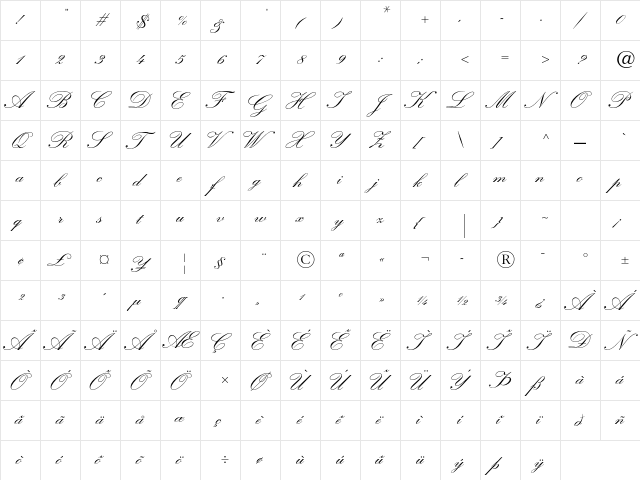
K߮stler Script LT Std Two Bold Regular Font Preview
| Designer | Hans Bohn |
Design Context for K߮stler Script LT Std Two Bold Typeface
K߮stler Script LT Std Two Bold flows with the natural rhythm of handwritten lettering, making it ideal for designs that call for warmth and personal expression. The heavy weight commands attention and anchors typographic hierarchies.
Font Pairing: Combine K߮stler Script LT Std Two Bold with a simple geometric sans for maximum contrast — the tension between flowing curves and clean structure is a classic typographic pairing.
Pro Tip: Pair K߮stler Script LT Std Two Bold with a clean sans-serif for supporting text. The contrast between fluid script and geometric structure creates an elegant typographic hierarchy.